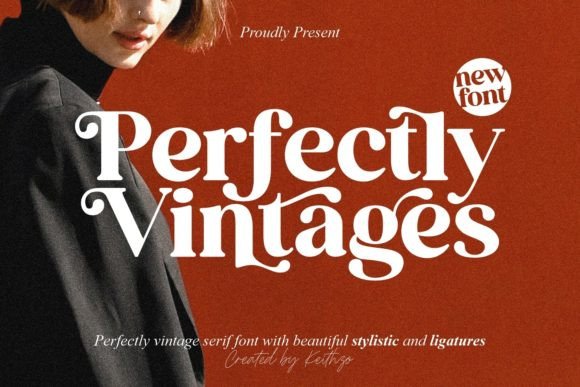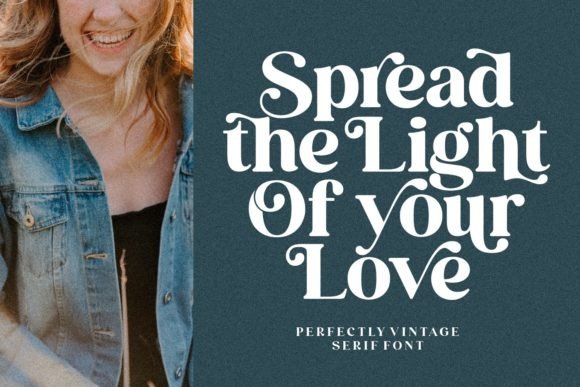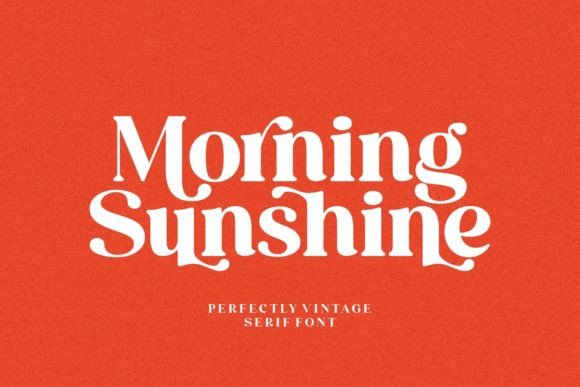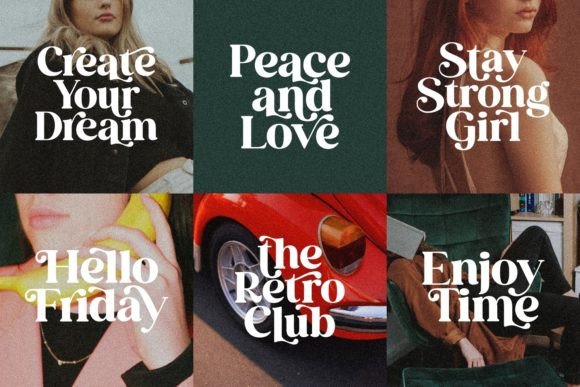
Perfectly Vintages Font
About the Perfectly Vintages Font
Step up your design game with Perfectly Vintages Font, a font that exudes confidence and style. Introducing the vintage-inspired and exquisite Perfectly Vintages serif font! Its classic design features sturdy, bold serifs and distinctive letterforms that recall the golden age of typography. Perfect for retro branding, vintage packaging, and other nostalgic designs, Perfectly Vintages adds a touch of old-world charm to any project.
Perfectly Vintages excels in headline treatments, short text blocks on posters, and branding applications requiring a strong vintage aesthetic. Its bold serifs and weighty forms make it unsuitable for body text or lengthy paragraphs; readability suffers at smaller sizes. Consider it for projects evoking nostalgia, craftsmanship, or heritage brands.
The font’s personality is confident and authoritative, yet retains a touch of warmth. Pairing it with a clean sans-serif like Montserrat for body text offers a pleasing contrast, maintaining readability while preserving the vintage feel. For a more playful approach, consider pairing it with a script font like Great Vibes, but use it sparingly to avoid visual clutter.
Alternatively, a geometric sans-serif like Futura would provide a modern counterpoint, highlighting the classic elegance of Perfectly Vintages. Avoid pairing it with other highly decorative or ornate fonts; the bold serifs are best showcased against a simpler, more neutral typeface.
Perfectly Vintages Font Usage Examples
Perfectly Vintages Font Example